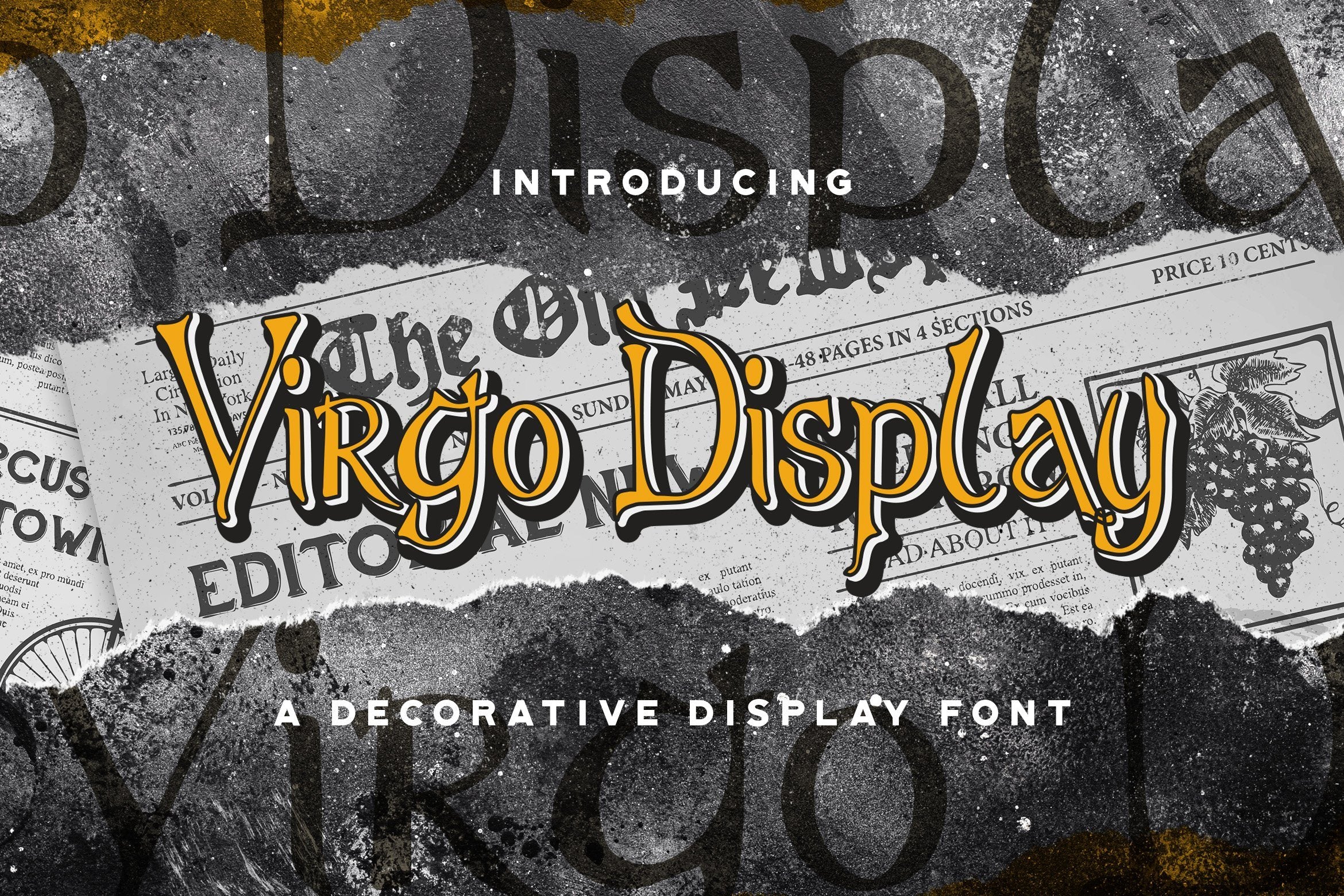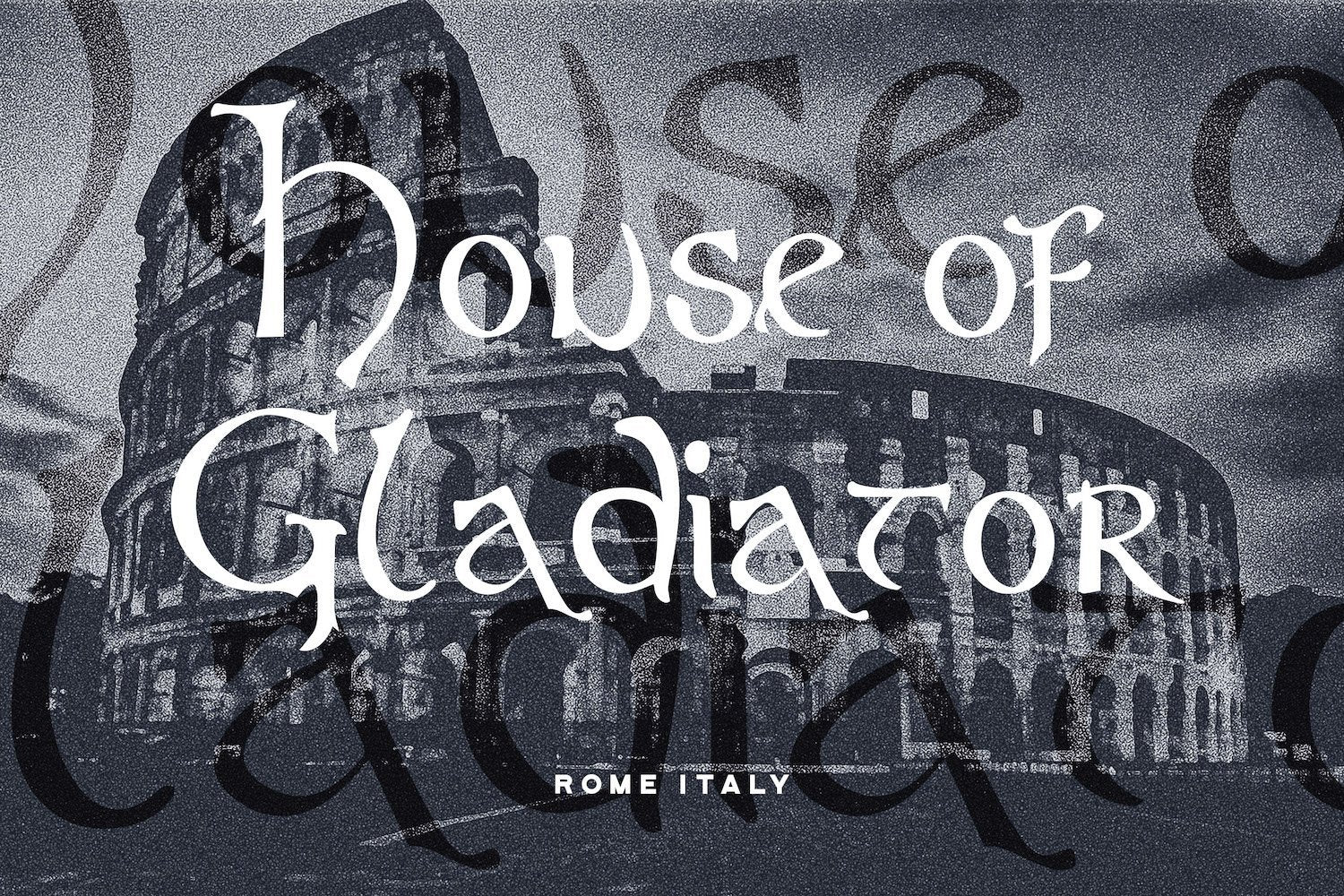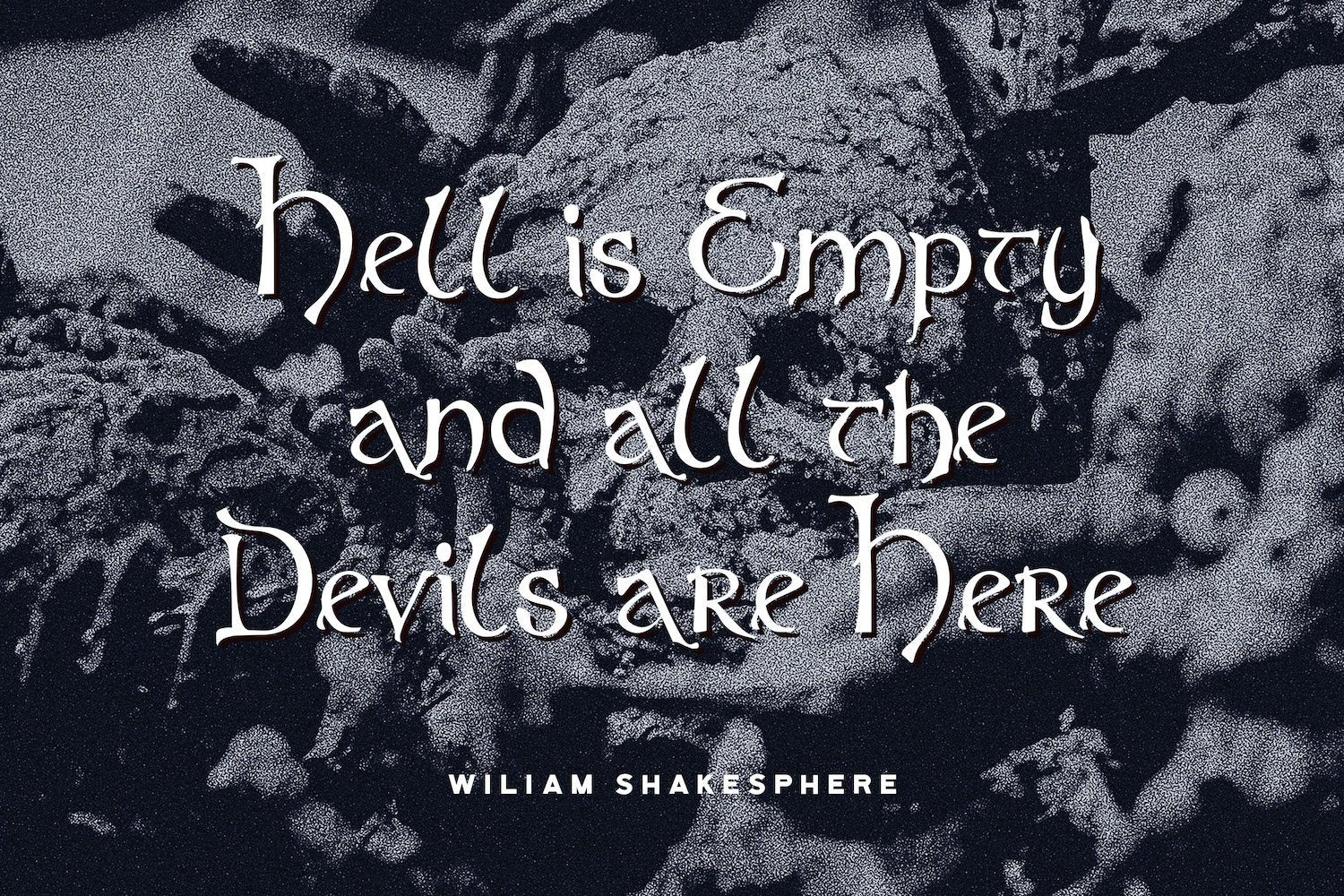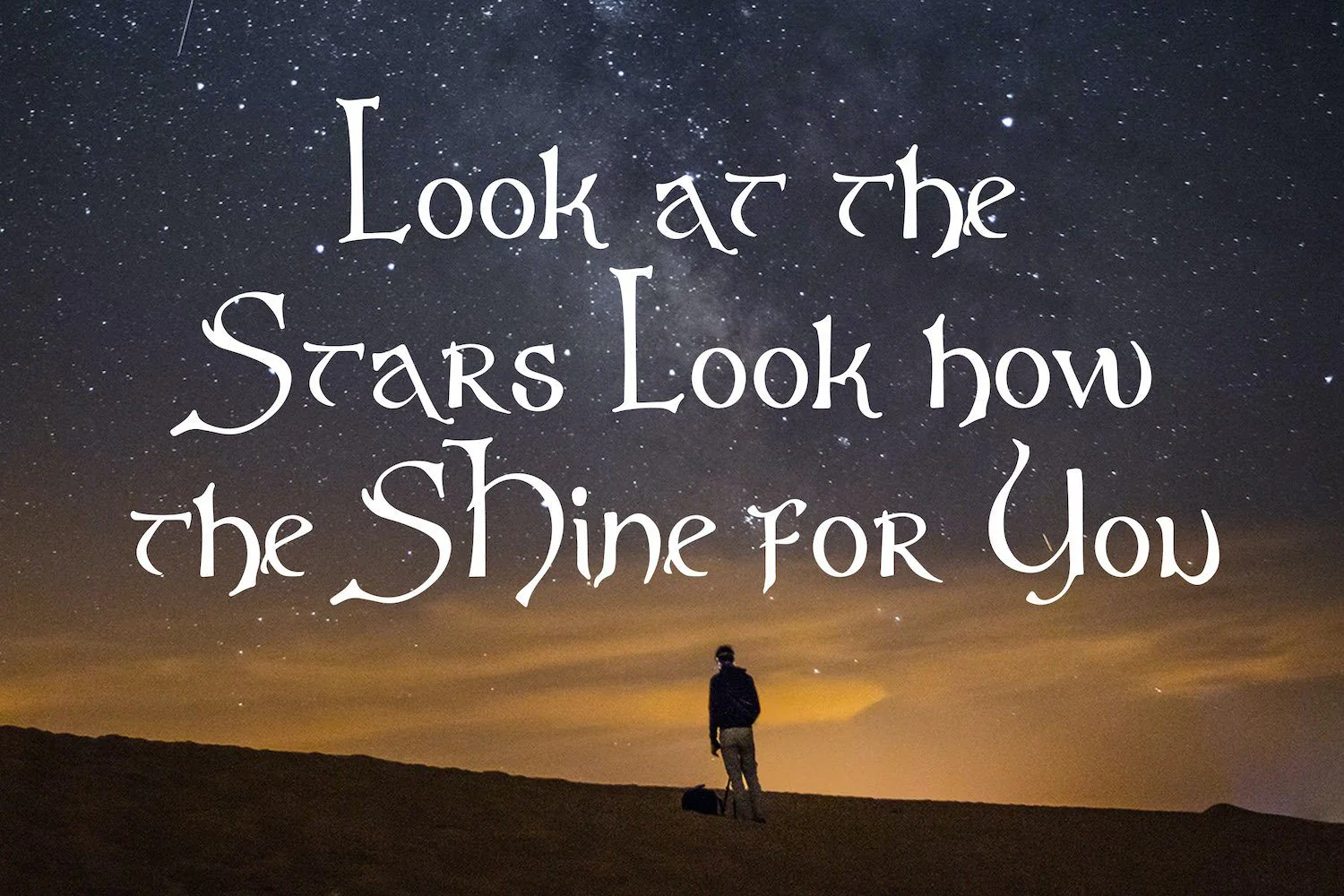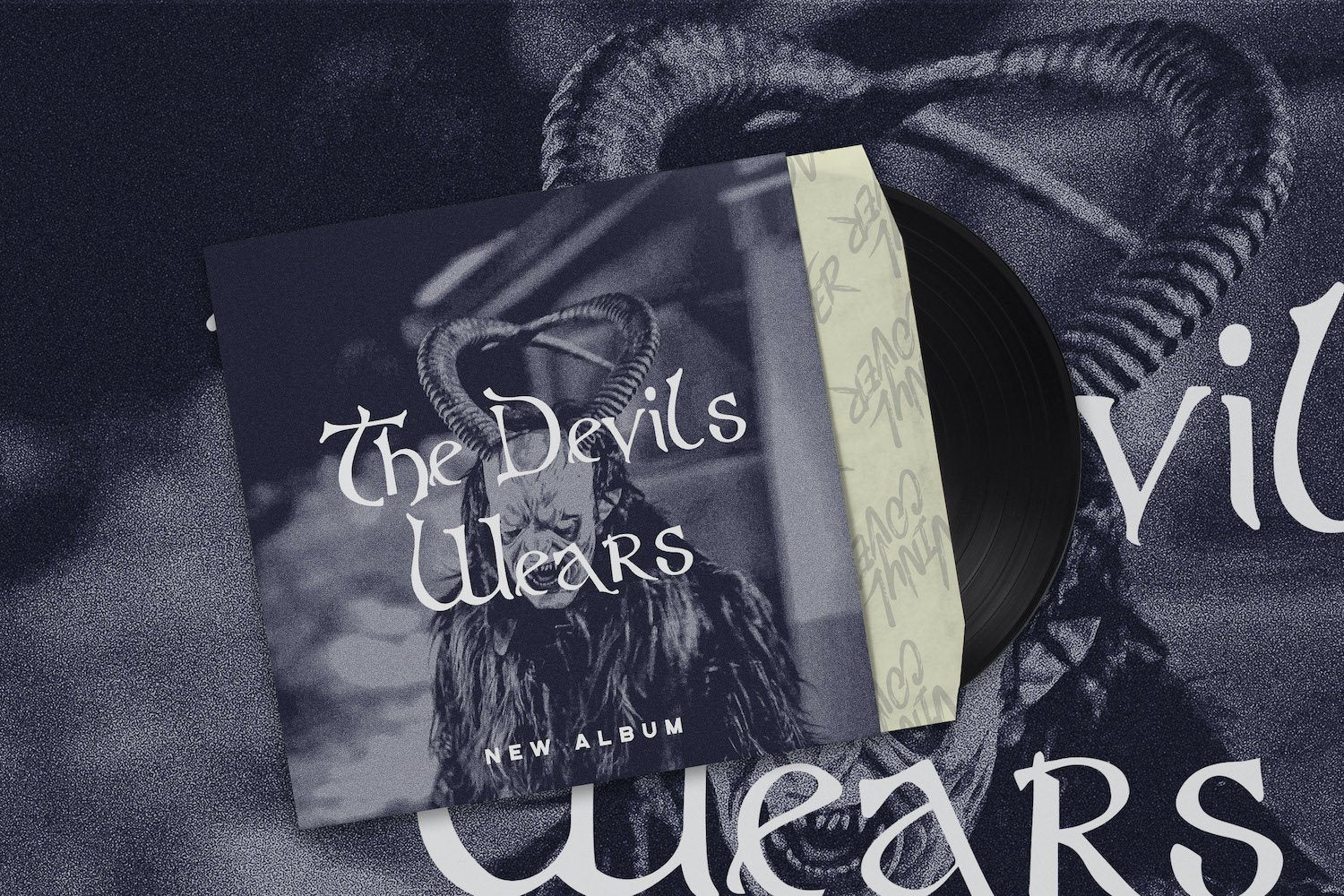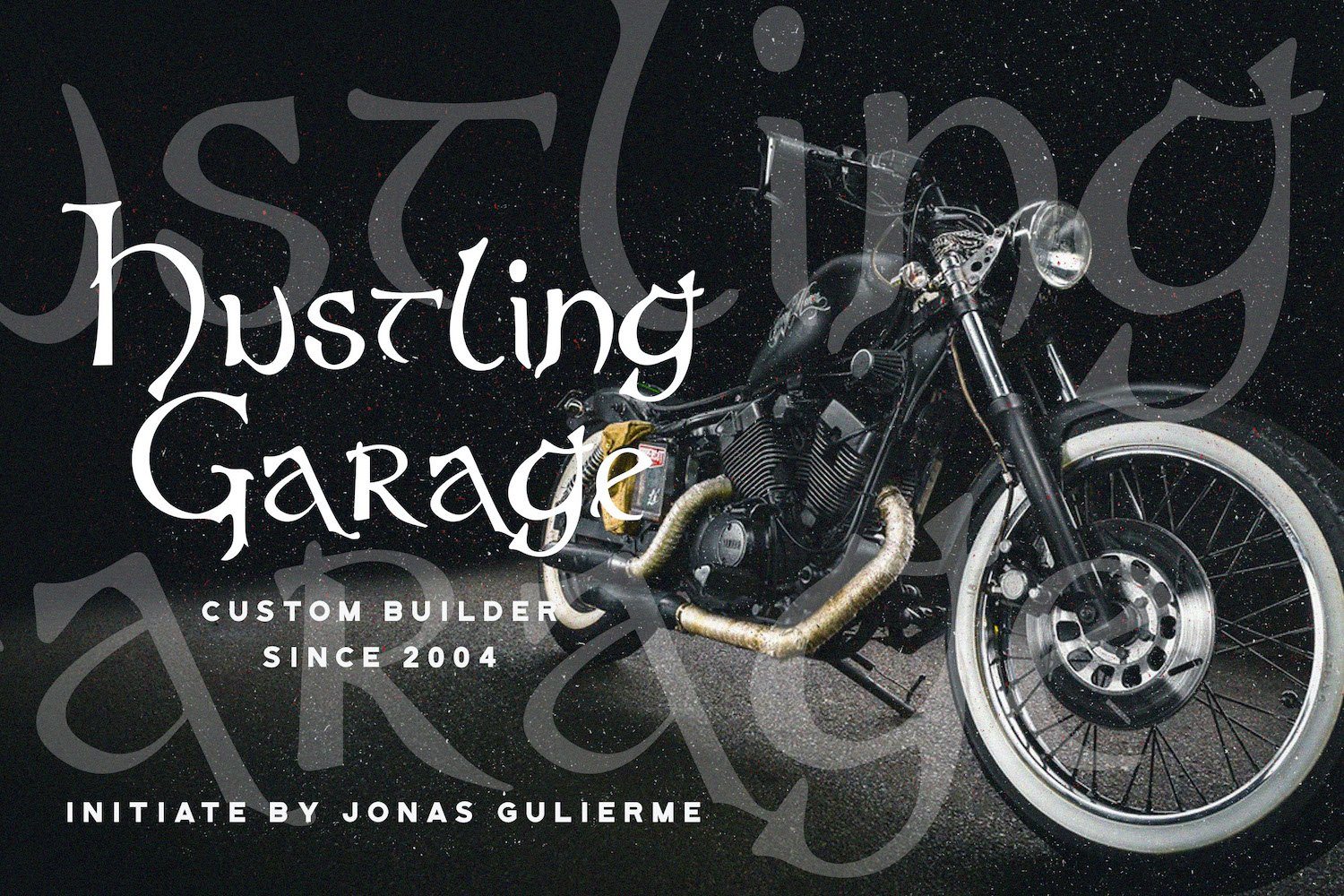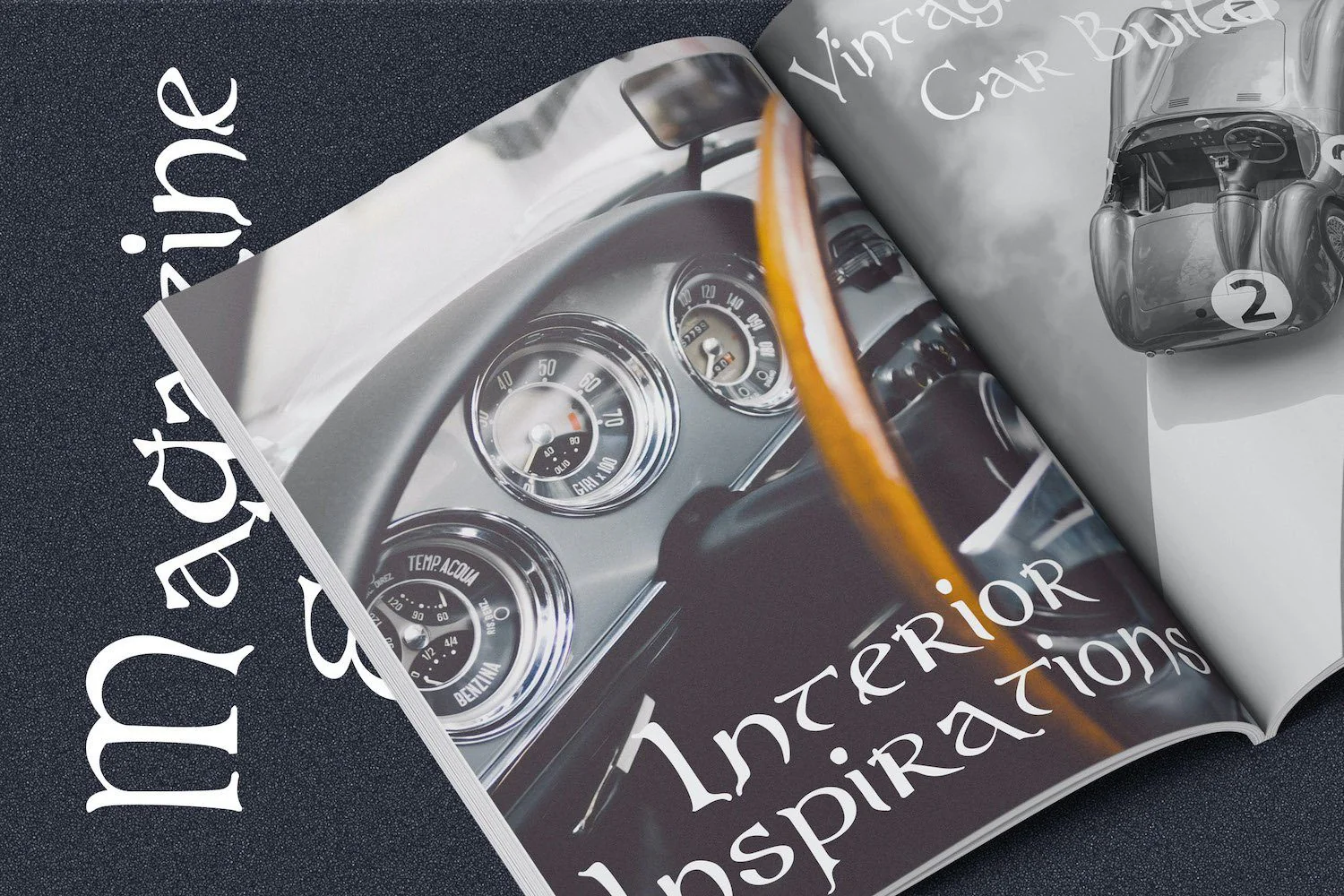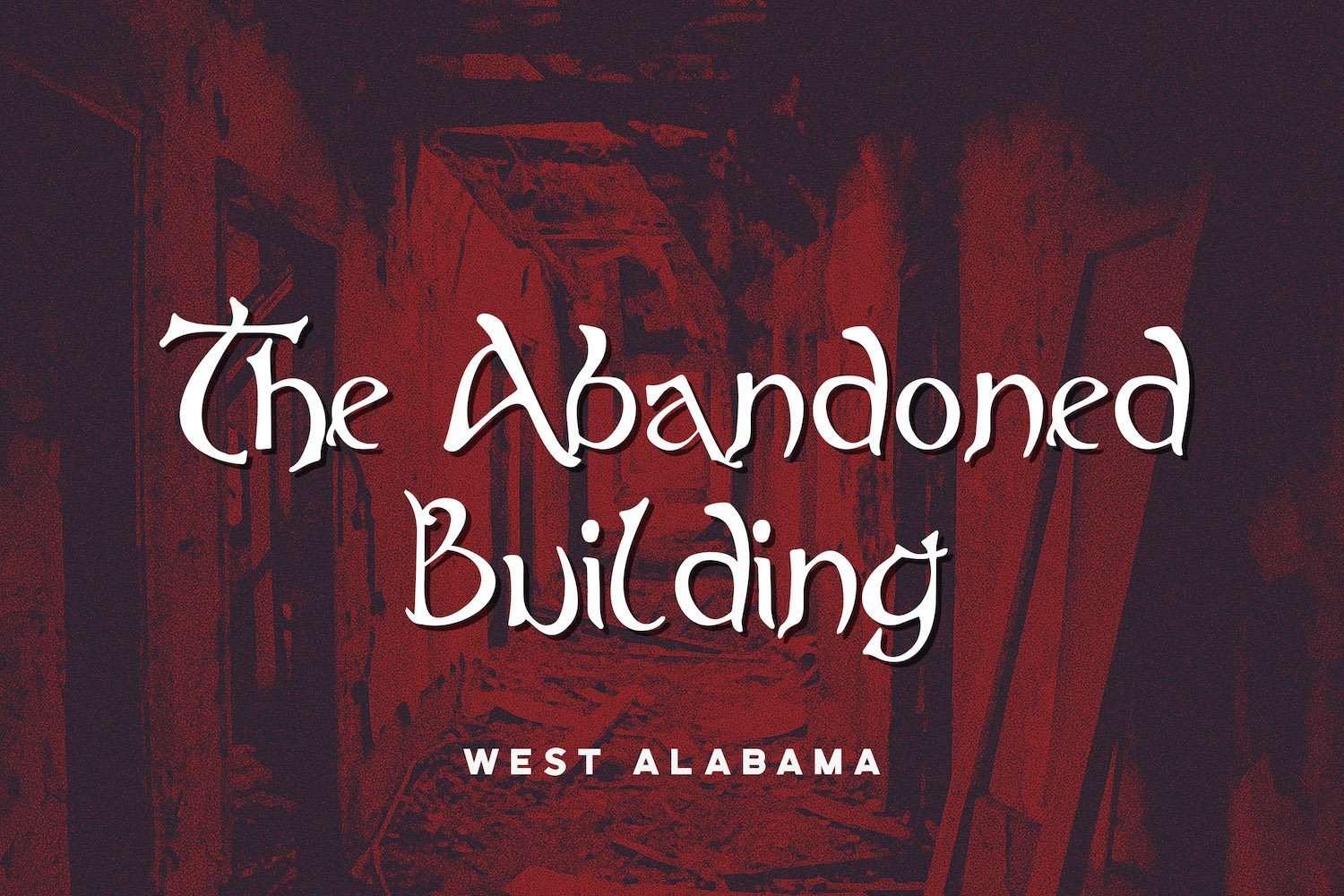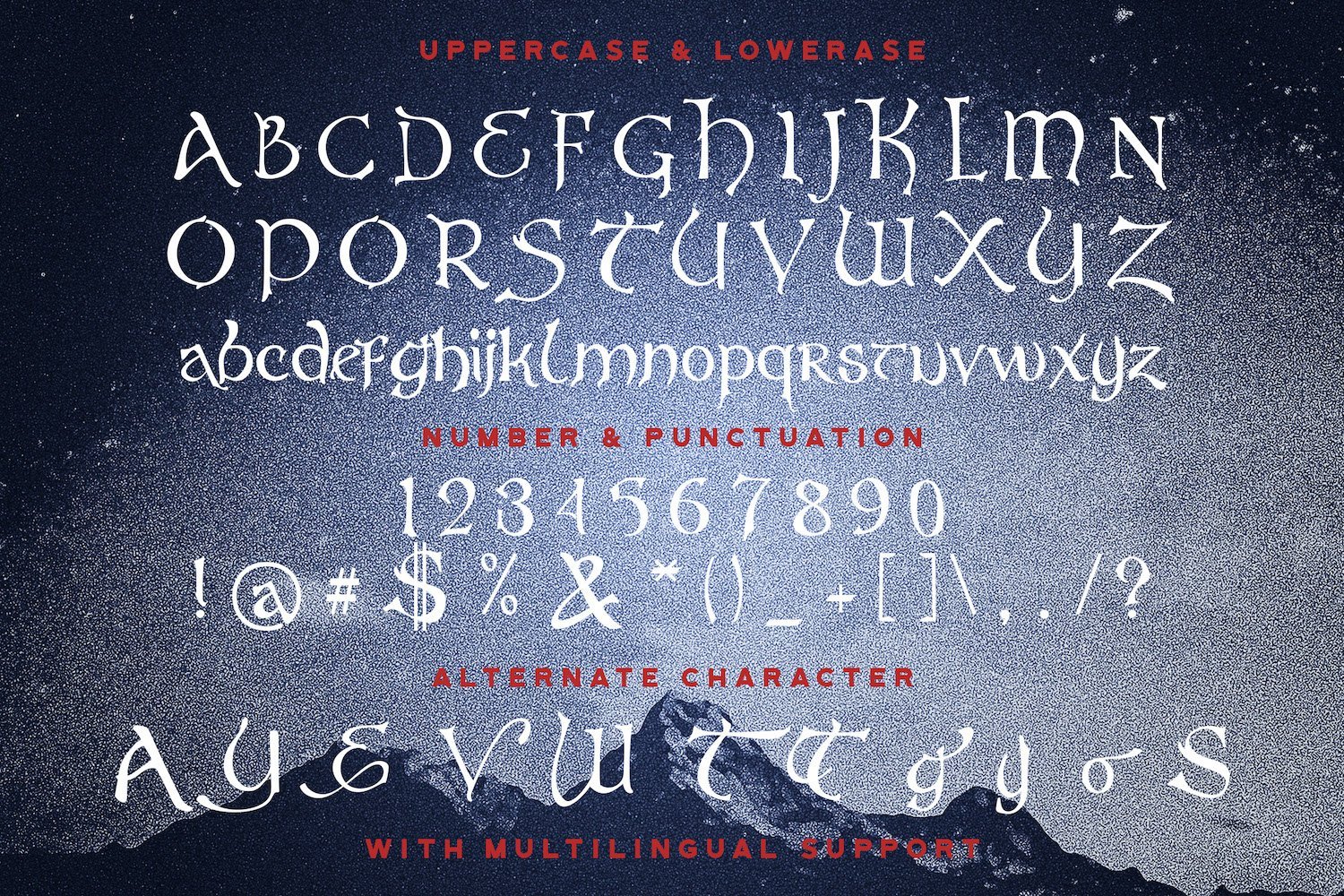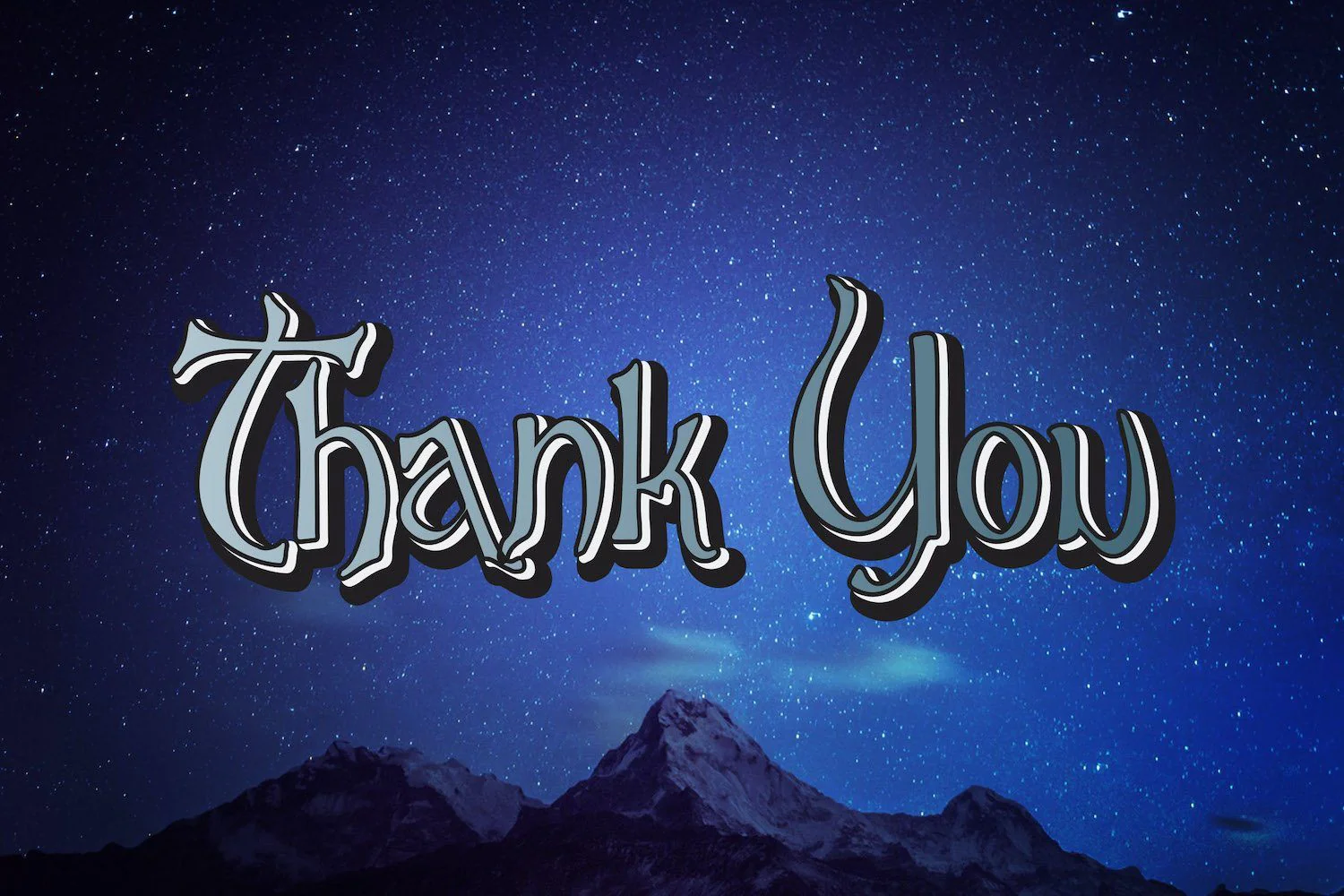
Virgo Display - Haunted Display Font
Introducing Virgo Display - Haunted Display Font
Virgo Display is display font with horror and scary style. Virgo Display has unique design taste that we combine with decorative horror style. The Virgo Display is perfect for your any horror project!
Introducing Virgo Display - Haunted Display Font
Virgo Display is display font with horror and scary style. Virgo Display has unique design taste that we combine with decorative horror style. The Virgo Display is perfect for your any horror project!